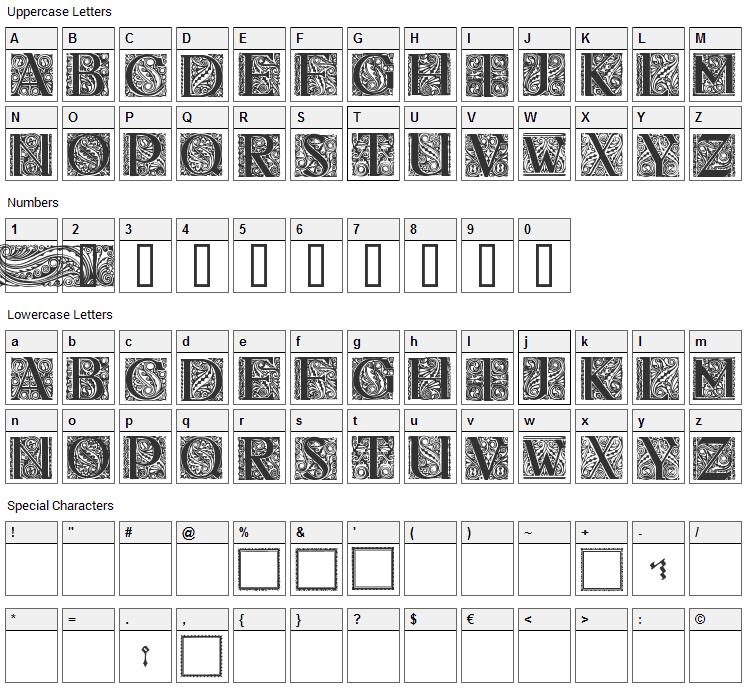
Behrens Antiqua Font
Font Name:Behrens Antiqua
Developer:Typo-Graf
Category:Fancy > Initials
The original font designer of Behrens Antiqua Initialen is Peter Behrens (1868-1940). To my knowledge and research there is no computer version of this font available. I scanned and digitised it from type specimen sheets of various quality. Some letters like O and U lack refinement. The font is public domain, free for all uses, commercial and private.
• Font Name:Behrens Antiqua Initialen Regular
• Manufacturer:Gebr. Klingspor Offenbach
• Designer:Peter Behrens
Scanned and digitised from type specimen sheets by Typo-Graf on 6th January 2015. Some letters lack finesse like the letters O and U.